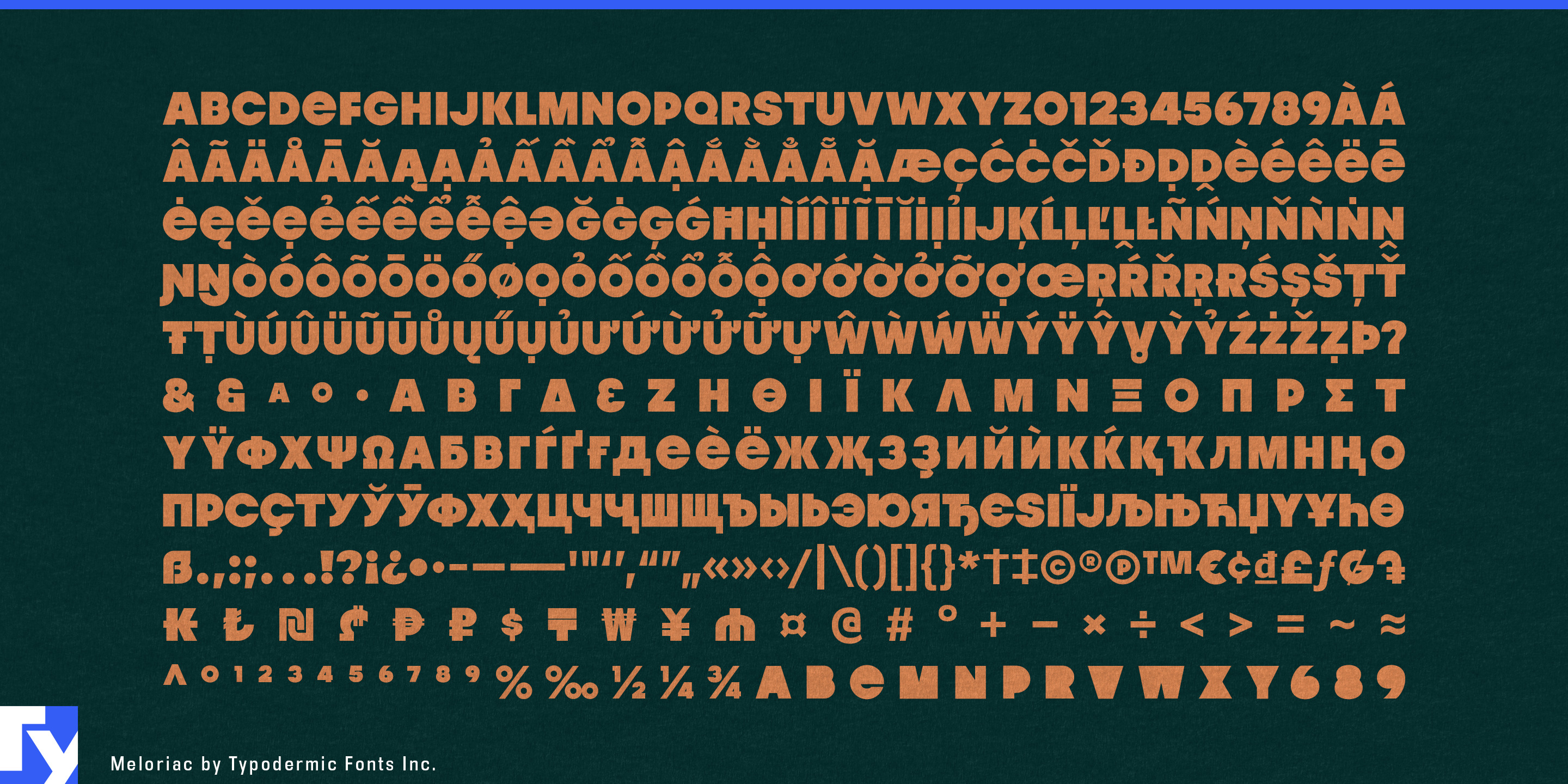
Meloriac
Ultra-heavy geometric sans serifs are everywhere now, but many still behave like ordinary type: big individual letters separated by ordinary spaces. Meloriac is built differently. Its almost-unicase forms, near-closed counters and tight-but-not-touching spacing compress short words into dense geometric objects.
That spacing draws on the tightly fitted display typography common from the mid-1970s into the 1980s, when letters were pushed close enough for the negative spaces between them to become part of the composition. Meloriac combines that approach with enormous weight, broad curves and a distinctive lowercase e that keeps the geometry from becoming too predictable.
Short names are where it thrives. On soda cans, ice-cream tubs, chocolate wrappers and cereal boxes, a brand or flavour name can occupy the package almost like an illustration. The same packed geometry has an affinity with modular sofas, molded furniture, squat lamps and vintage hi-fi equipment, making Meloriac useful for furniture showrooms, lighting collections, audio shops and product model names. Construction toys and modular play products offer another natural home for letters that look almost assembled from oversized components.
The same economy of space gives Meloriac a thoroughly current job in YouTube thumbnails and video title cards, where two or three words have to remain forceful after the image shrinks to phone size. Brand names, model names, flavour names, thumbnail headlines and exhibition titles all benefit from its ability to turn a few letters into one substantial shape; pair it with something quieter for the information around them.